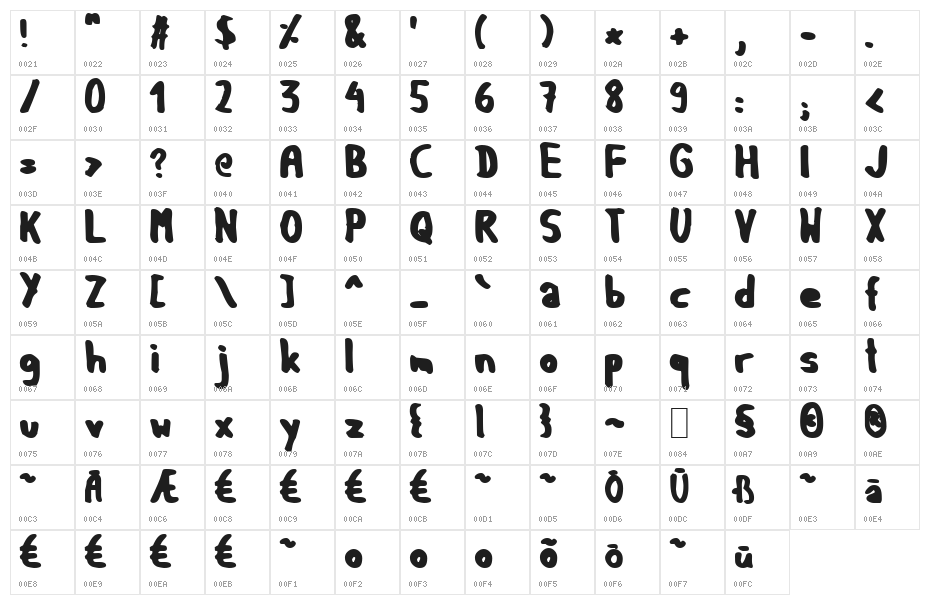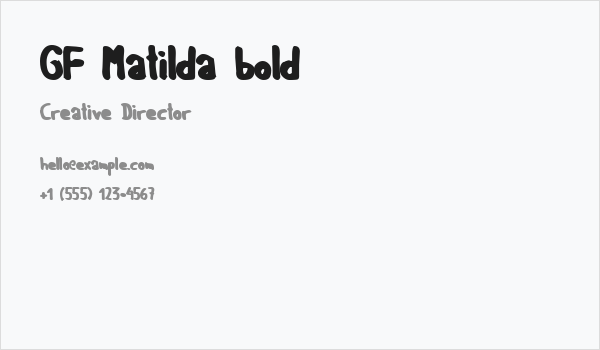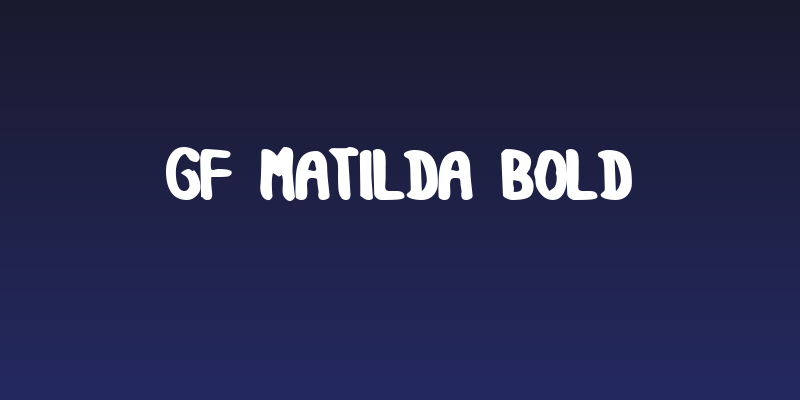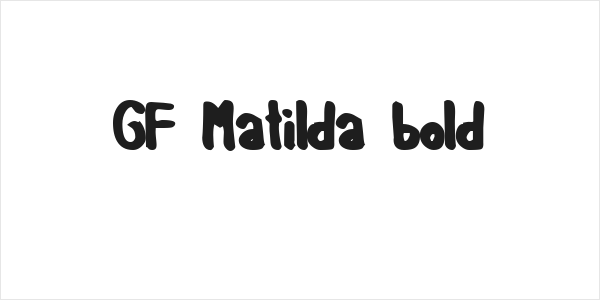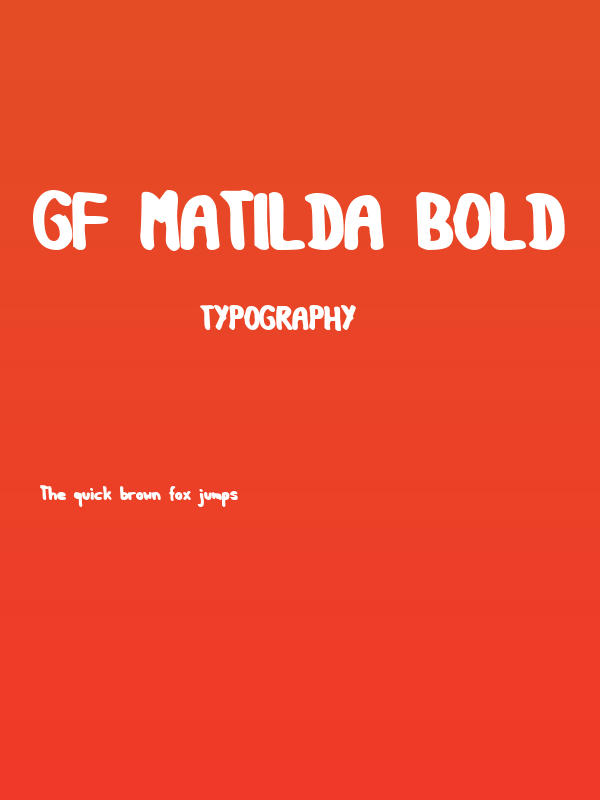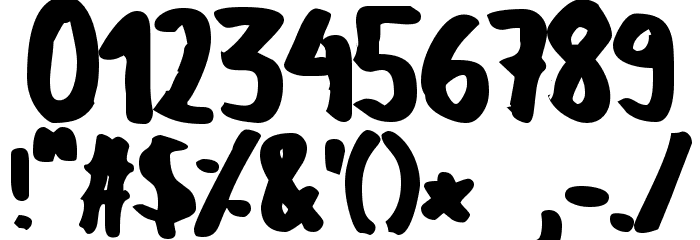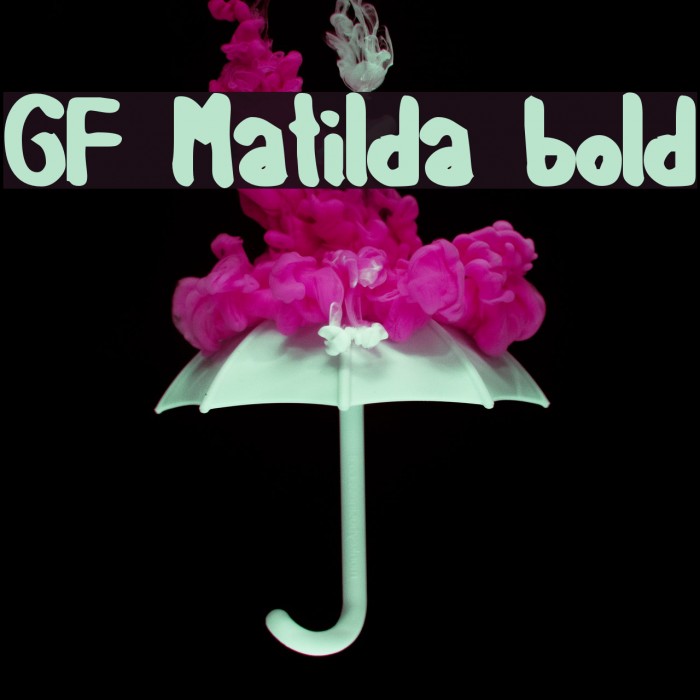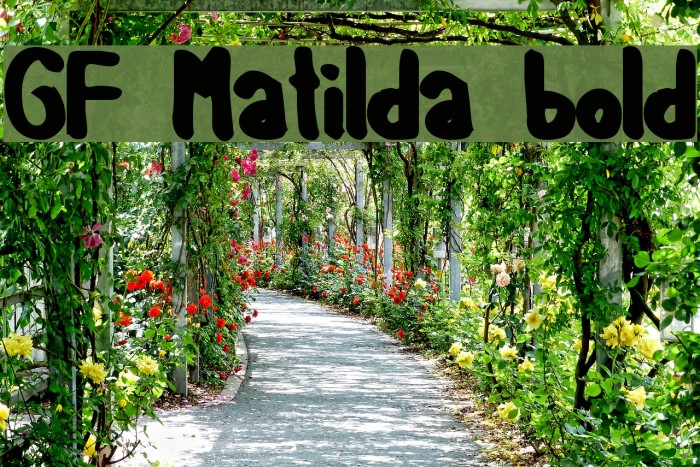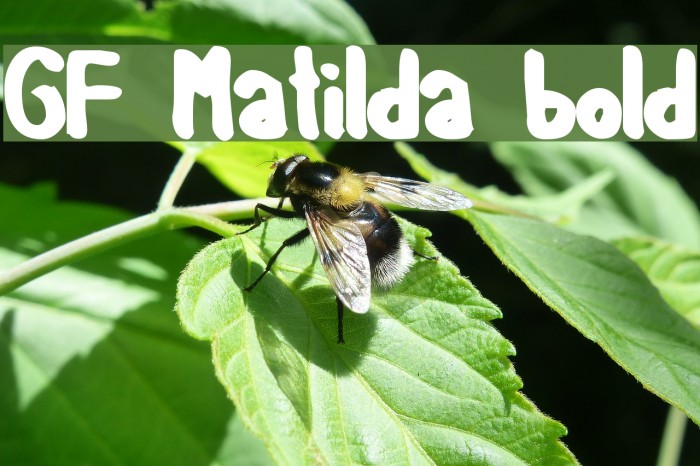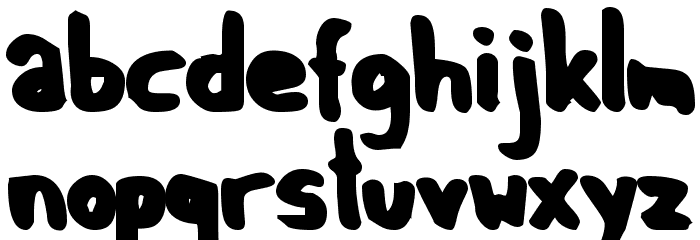
GF Matilda bold Font
GF Matilda bold Description
This font features a bold and playful style with thick, rounded strokes that give it a friendly and approachable appearance. The characters are slightly irregular, adding a hand-drawn feel that enhances its casual and informal vibe. The uppercase and lowercase letters maintain a consistent weight, contributing to a cohesive look. Numbers and special characters are designed with the same playful aesthetic, making them stand out while remaining harmonious with the alphabet. This font's unique style is perfect for projects that aim to convey warmth and creativity.
| Overall Style | Playful, Casual |
| Proposed Projects | Ideal for children's books, playful branding, casual invitations, and creative posters. |